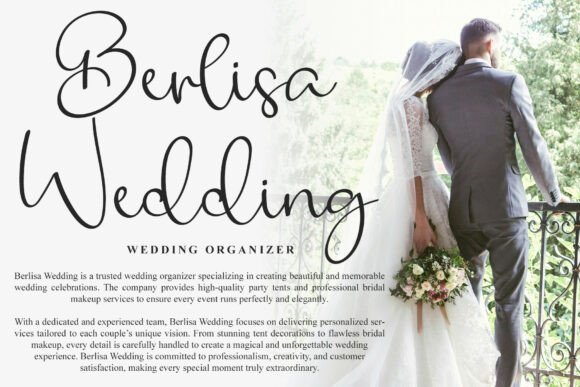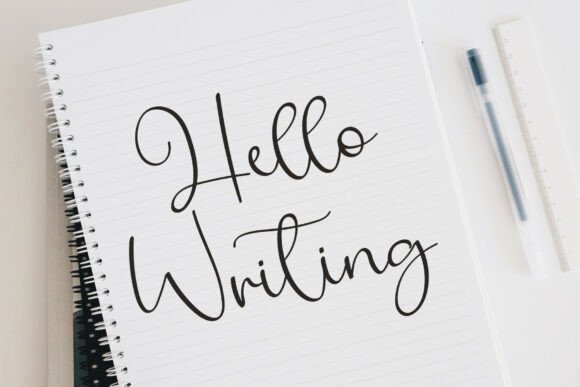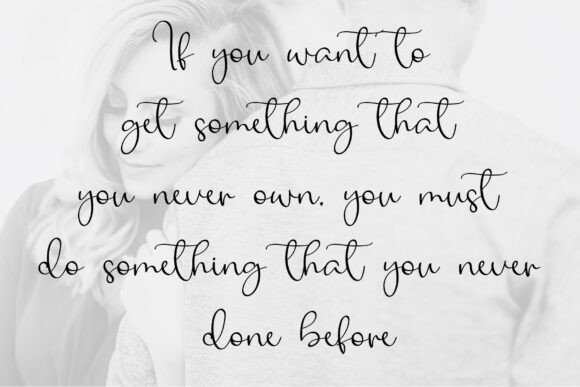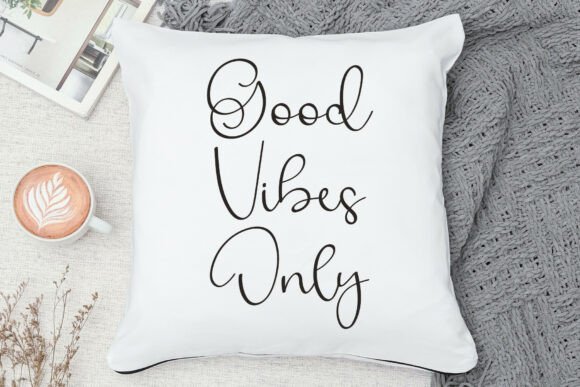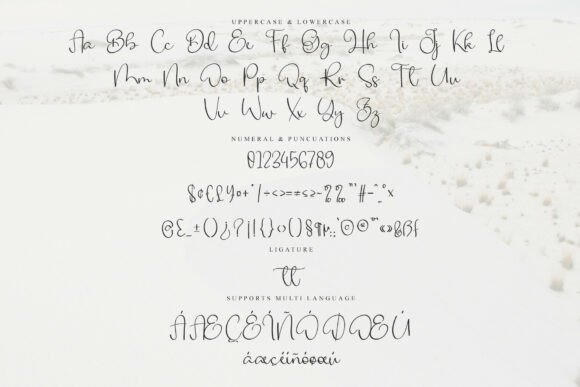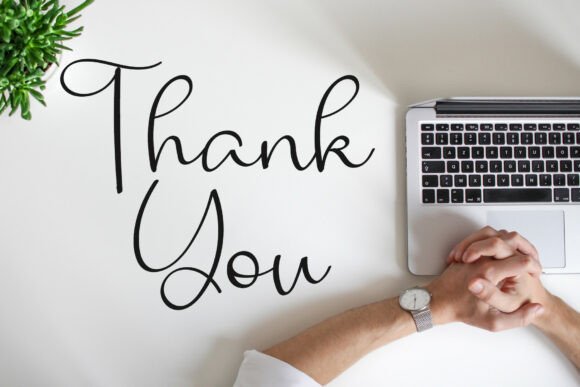
The Perfect Script for Your Next Masterpiece
There’s nothing quite like the thrill of discovering a new font that makes your design come alive. You’re brainstorming ideas for a special project, and suddenly, a beautiful script font catches your eye. For designers like you, the right font can be the difference between a good design and a great one.
Enter the Handsome Husband Font, a stylish and dainty script font that’s perfect for any project that needs a touch of elegance. Whether you’re creating logos, branding projects, labels, or photography watermarks, this font is sure to add a beautiful script touch. With its PUA encoding, you’ll have easy access to all the glyphs and swashes you need to create stunning designs.
As a valuable addition to any designer’s toolkit, the Handsome Husband Font is a must-have for anyone looking to elevate their designs to the next level.
Handsome Husband Font Key Features
- Unique Characteristics: The Handsome Husband Font features a unique blend of modern and classic elements, with subtle rounded edges and elegant lines, making it perfect for creating a sophisticated and stylish look.
Handsomer Husband Font Review
I have to say, I was a bit skeptical about the “Handsome Husband Font” at first. But, after using it in a few projects, I’ve come to appreciate its unique charm. ✨ Here are some things that work well:
- Unique character style: The font has a distinct, hand-drawn feel that can add a touch of personality to your designs.
- Legibility: Despite its quirky style, the font is still quite readable, even at smaller font sizes.
- Wide language support: The font includes a wide range of languages, making it a great option for international projects.
- Limited scalability: While the font looks great at smaller sizes, it can become pixelated and distorted at larger sizes.
- No bold or italic variations: If you need to emphasize certain text, you’ll need to rely on other fonts or creative workarounds.
Overall, I think the “Handsome Husband Font” is a great addition to any designer’s toolkit. It’s perfect for projects where you want to add a touch of personality and whimsy. Just be aware of its limitations and plan accordingly.
The Handsome Husband Font is ideal for:
- Personalized gifts and mementos.
- Customized signs and banners.
For best results, use the font in conjunction with a clean and elegant design aesthetic.